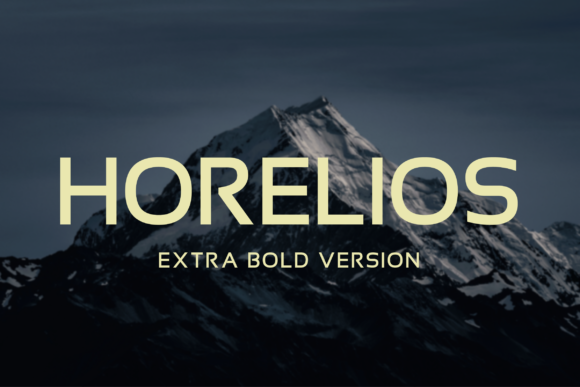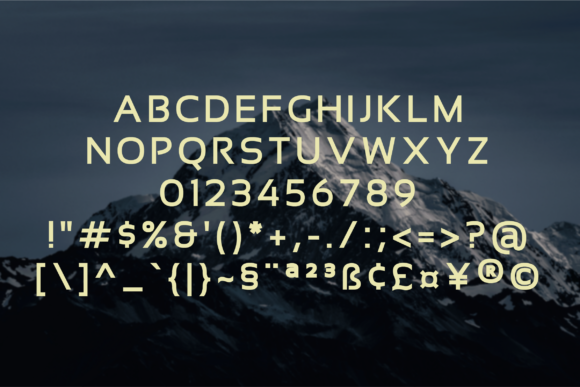
Sans Serif Fonts Horelios Extra Bold Font 0 168 FacebookTwitterPinterestWhatsApp Horelios Extra Bold Font 1 of 2 About Horelios Extra Bold Font Horelios is a minimalistic, timeless, and stunning all caps sans serif font that looks beautiful in layouts, headers, web, and many other contexts! DOWNLOAD NOW